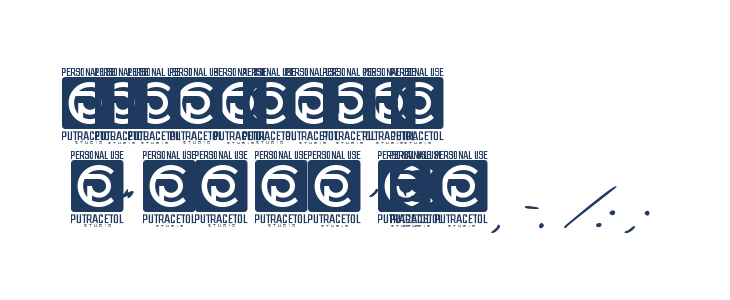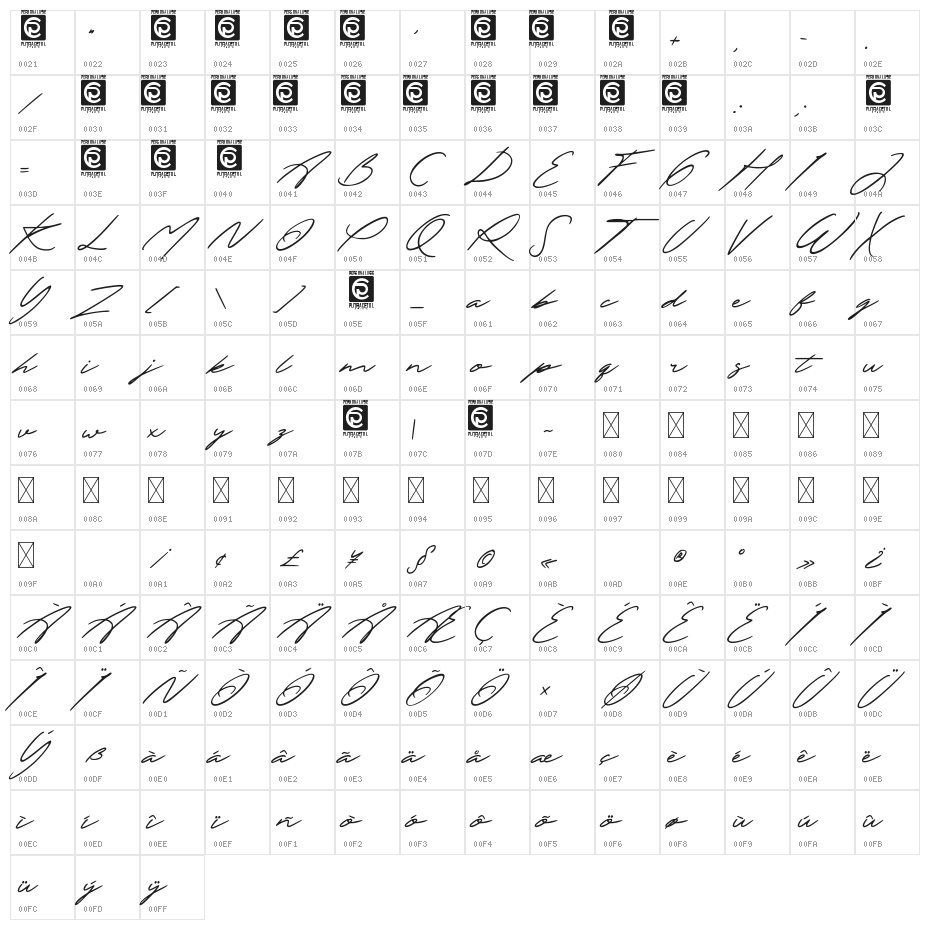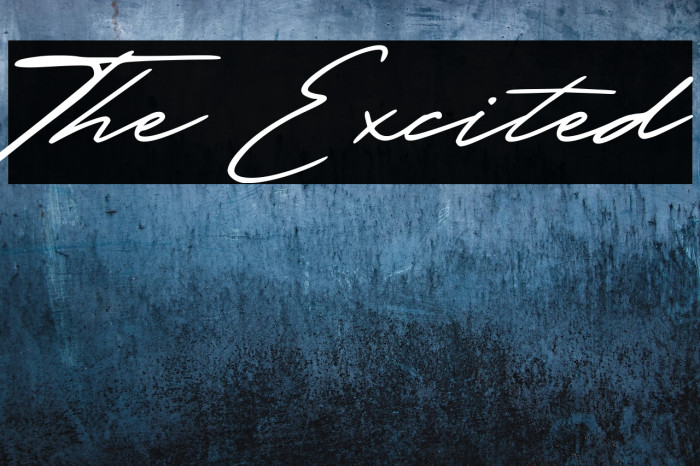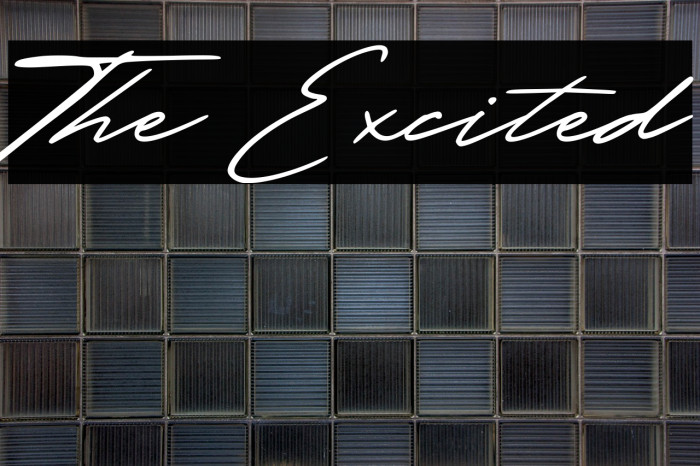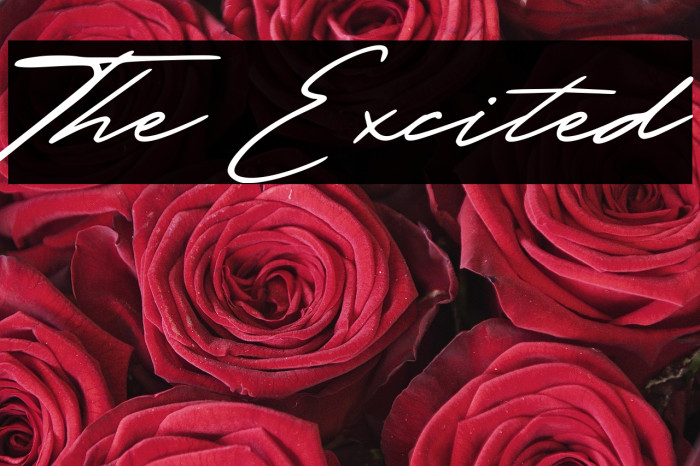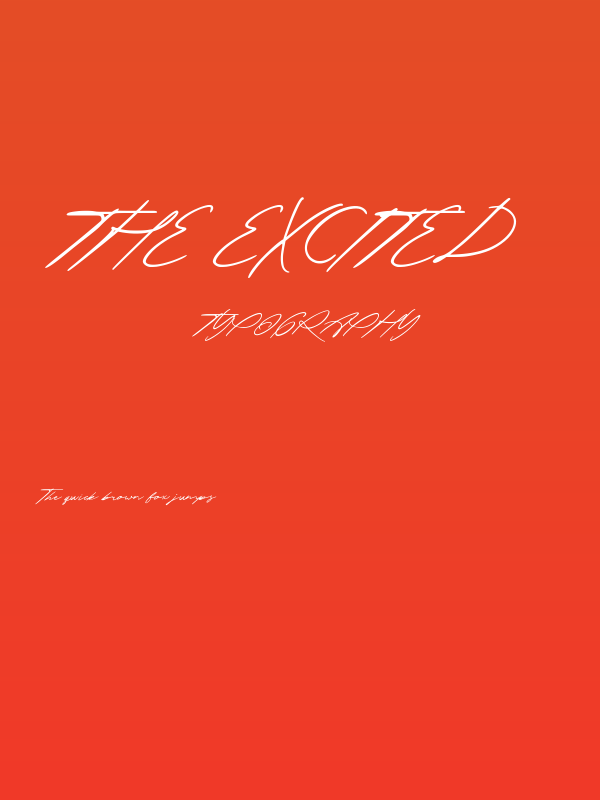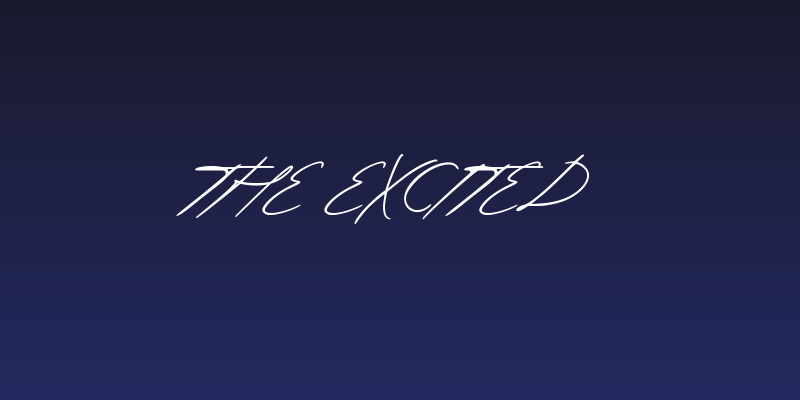
The Excited Font
The Excited Description
This font features an elegant and fluid script style, characterized by its smooth, flowing lines and cursive nature. The uppercase letters are slightly more structured, while the lowercase letters exhibit a more relaxed and natural handwriting style. The strokes are consistent in width, providing a harmonious and balanced appearance. This font exudes a sense of sophistication and personal touch, making it ideal for projects that require a handwritten aesthetic. The characters are well-spaced, ensuring readability while maintaining the script's graceful flow.
| Proposed Projects | Ideal for wedding invitations, personal branding, greeting cards, and elegant stationery. |